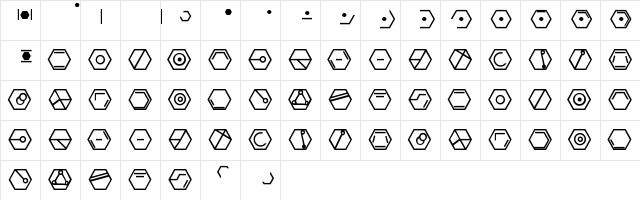
Hexacode Regular
Design Context for Hexacode Typeface
Hexacode uses fixed-width spacing throughout, giving it the structured, systematic character associated with coding environments and technical documentation.
Pro Tip: Use Hexacode with slightly increased line-height for extended reading — fixed-width spacing can feel dense in longer passages without extra breathing room.